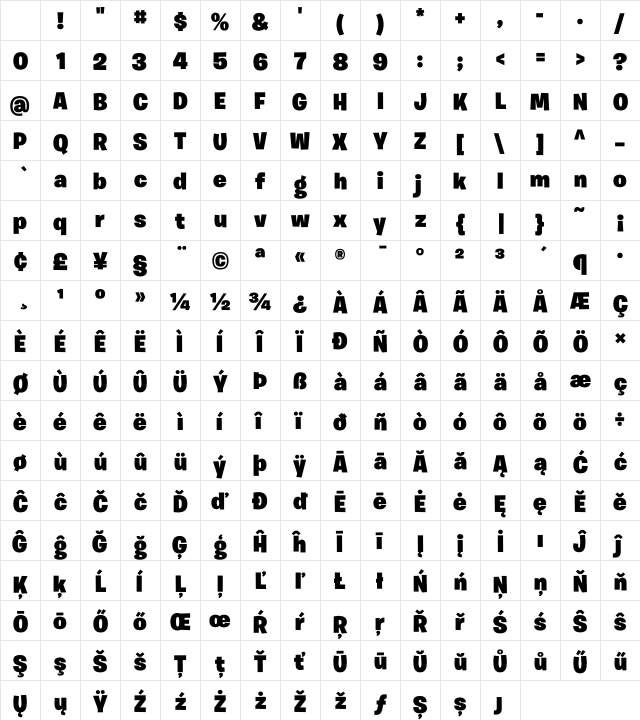
Complete Burbank Big Regular Black glyph index. Displaying only characters natively supported by Burbank Big Regular Black font.
Burbank Big Regular is a composed and adaptable typeface that performs quietly and consistently across a wide range of design contexts.
Who designed the Burbank Big Regular Black font?
This font was published by House Industries. Check the technical specs section for copyright and designer details.